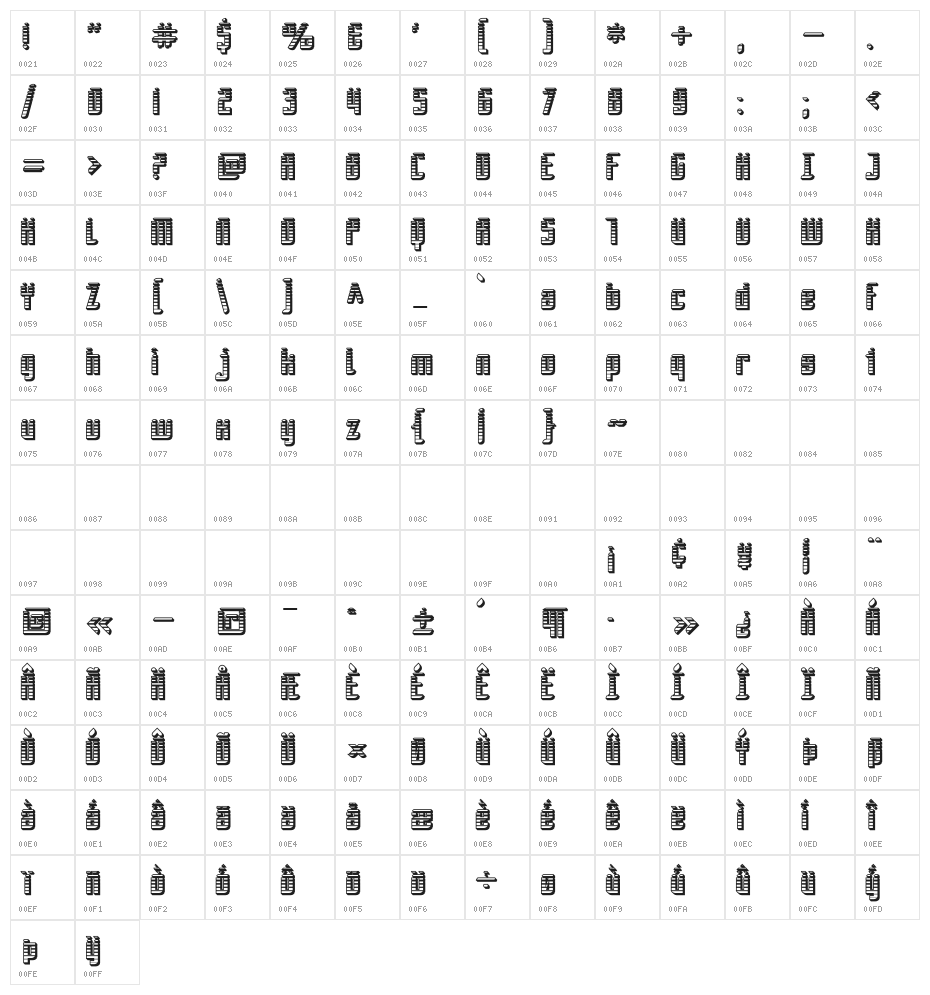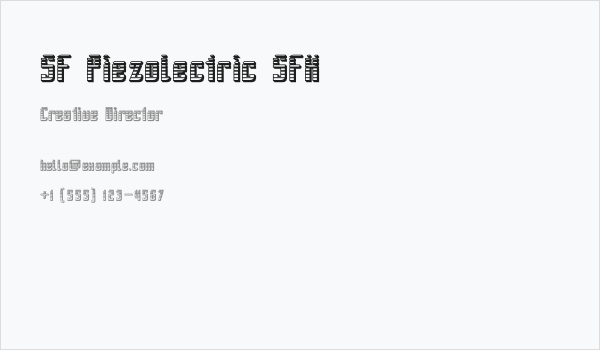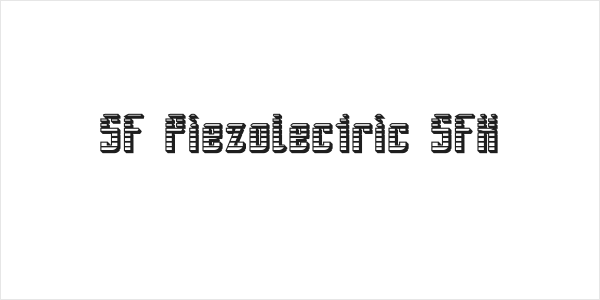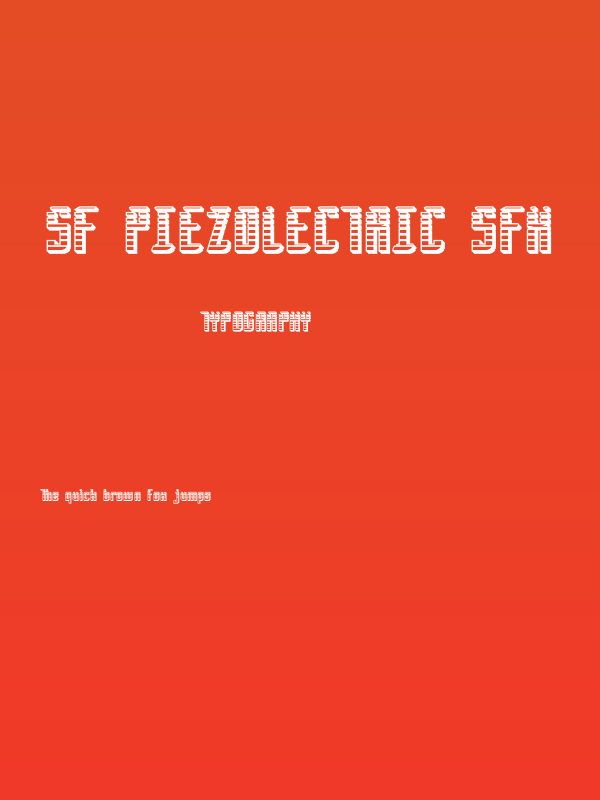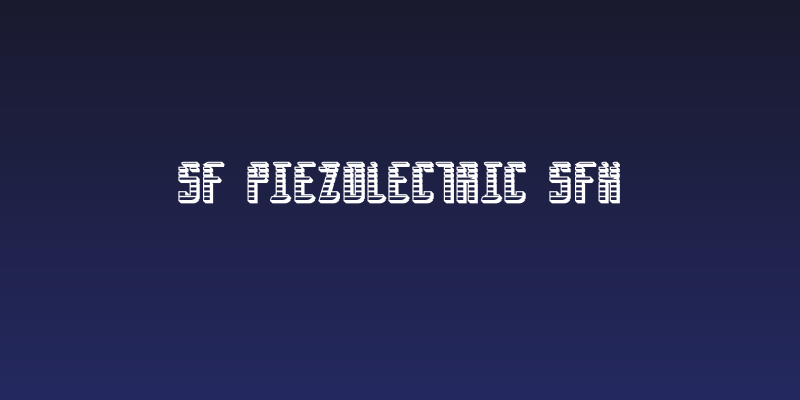
SF Piezolectric SFX Font
SF Piezolectric SFX Description
This font features a bold, geometric design with a distinct striped pattern running horizontally through each character. The letters are blocky and angular, giving a futuristic and industrial feel. The uppercase and lowercase characters maintain a consistent style, with the lowercase being slightly more compact. Numbers and special characters follow the same design principles, ensuring uniformity across all glyphs. The font's unique style makes it stand out, ideal for attention-grabbing headlines or creative projects that require a modern, edgy look.
| Proposed Projects | Ideal for sci-fi themed projects, video game titles, posters, and branding that requires a modern and industrial aesthetic. |